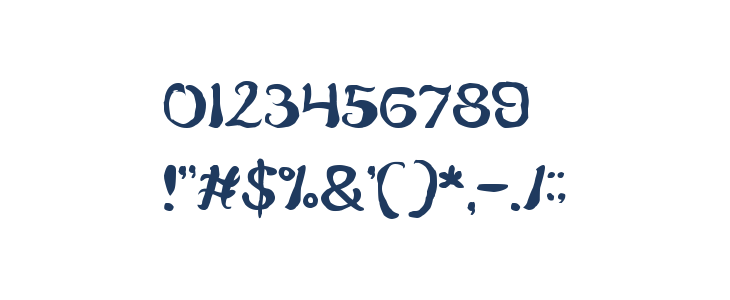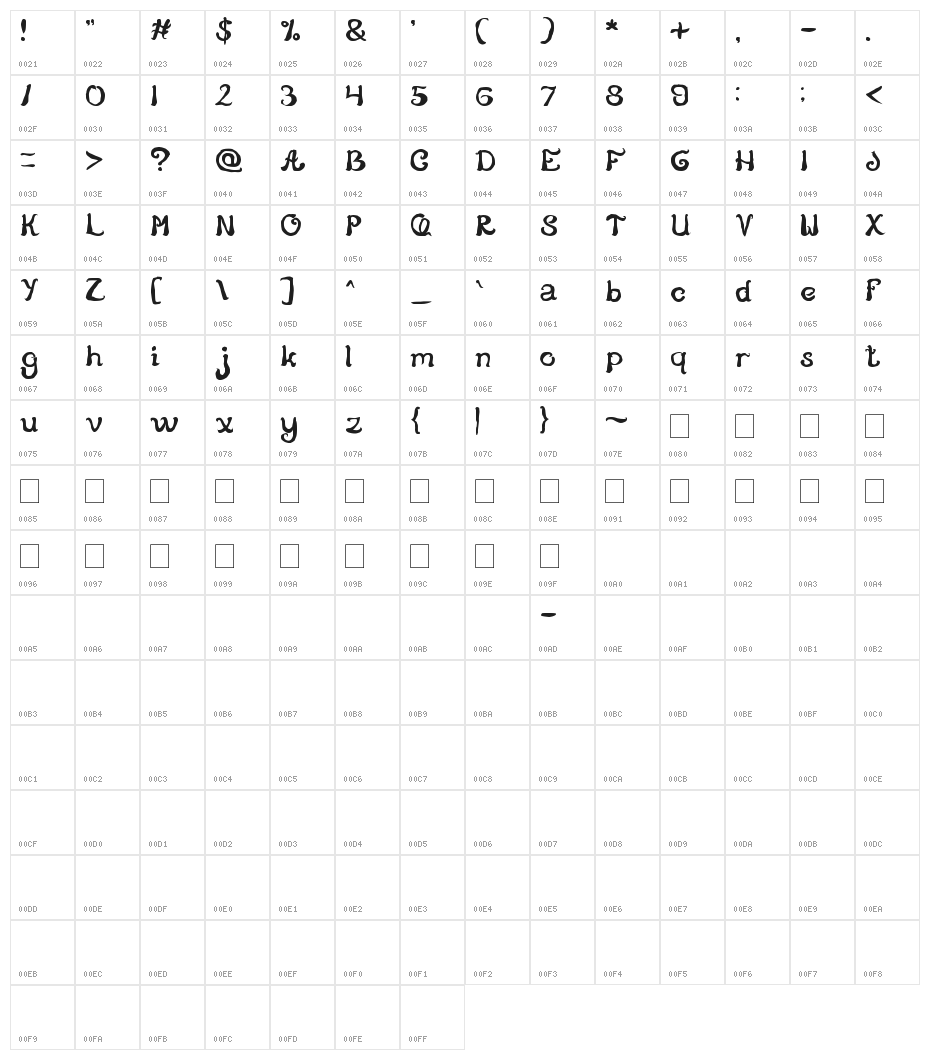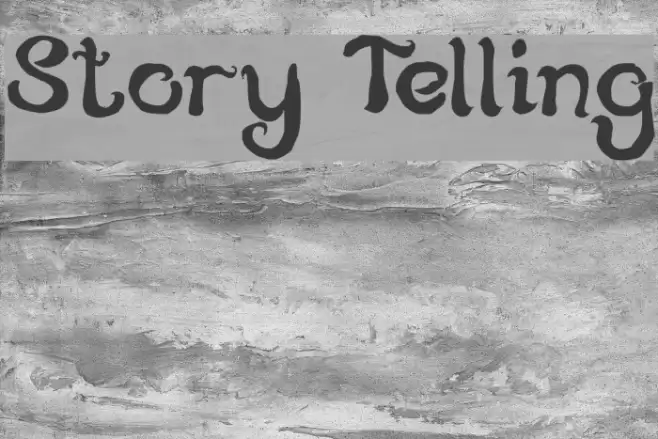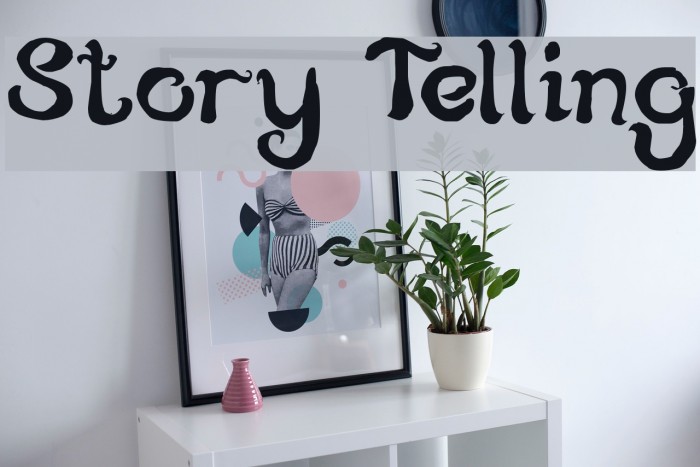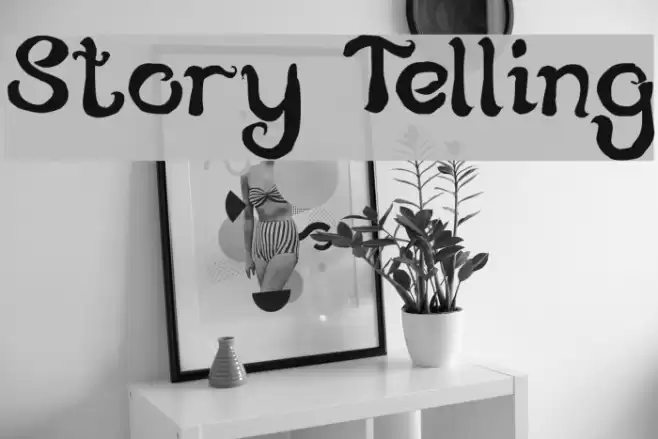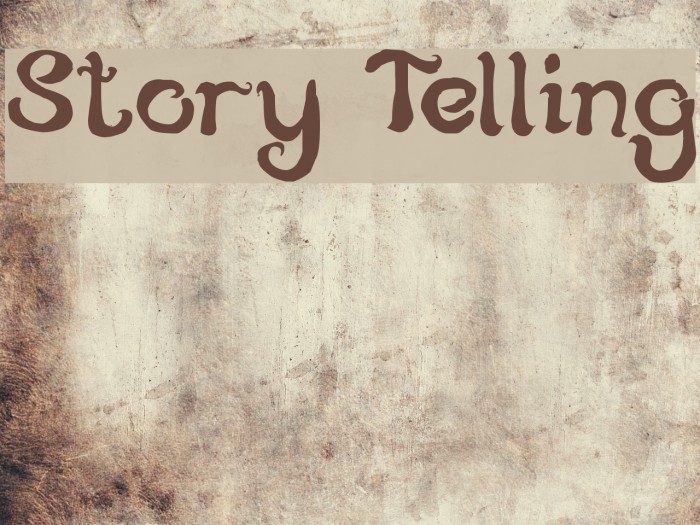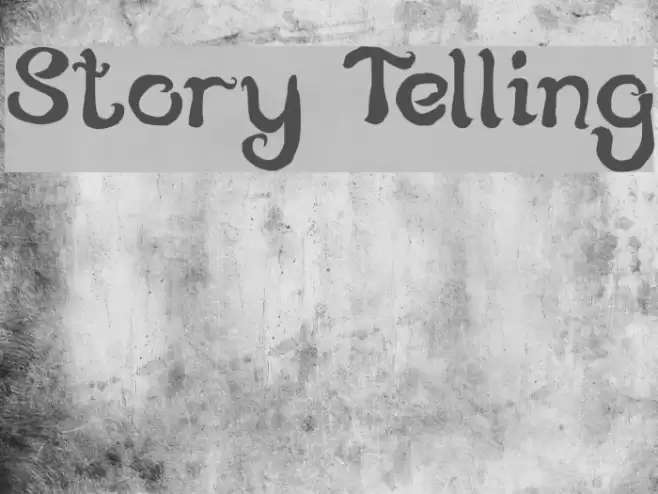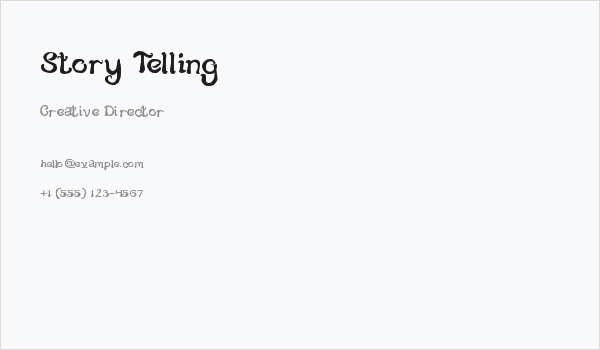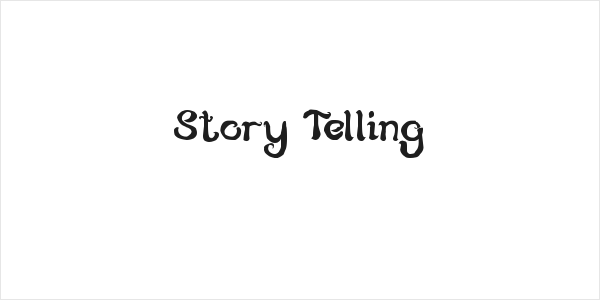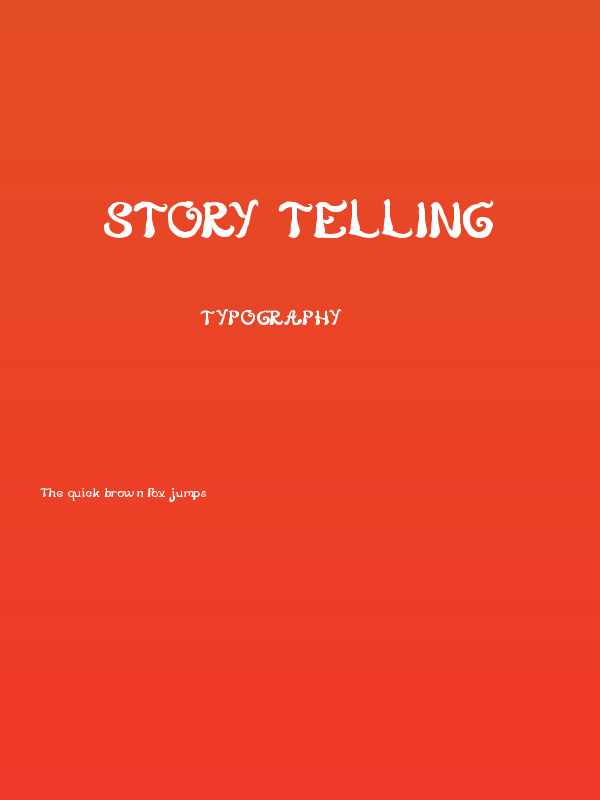
Story Telling Font
Story Telling Description
This font features a whimsical and playful design, characterized by its bold and irregular strokes that give it a hand-drawn appearance. The letters have a unique, slightly uneven baseline, adding to its charm and making it stand out. The uppercase letters are bold and prominent, while the lowercase letters maintain a consistent style with a touch of flair. The numbers and special characters follow the same playful theme, ensuring a cohesive look across all text. This font's distinctive style makes it perfect for creative projects that require a touch of personality and fun.
| Proposed Projects | Ideal for children's books, creative posters, playful branding, and artistic invitations. |